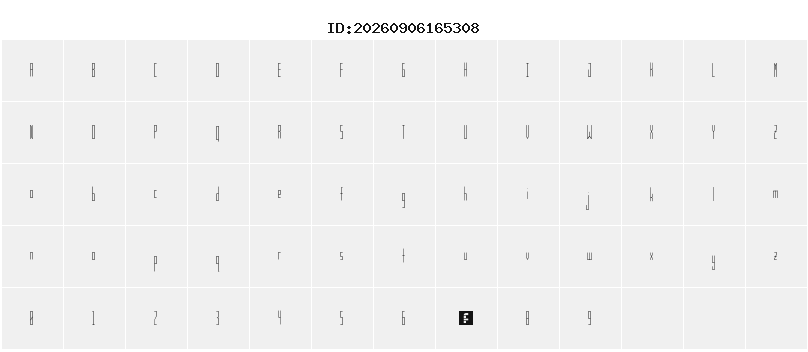
• Font Name: TS Gaunt
• Full Font Name: TS Gaunt Regular
• Designer: thesock338
• Description: “TS Gaunt” was built with FontStruct
About TS Gaunt.ttf
TS Gaunt.ttf is a modern, elegant sans-serif font designed for ultimate readability and visual harmony. Perfect for branding, headlines, web design, and print materials.